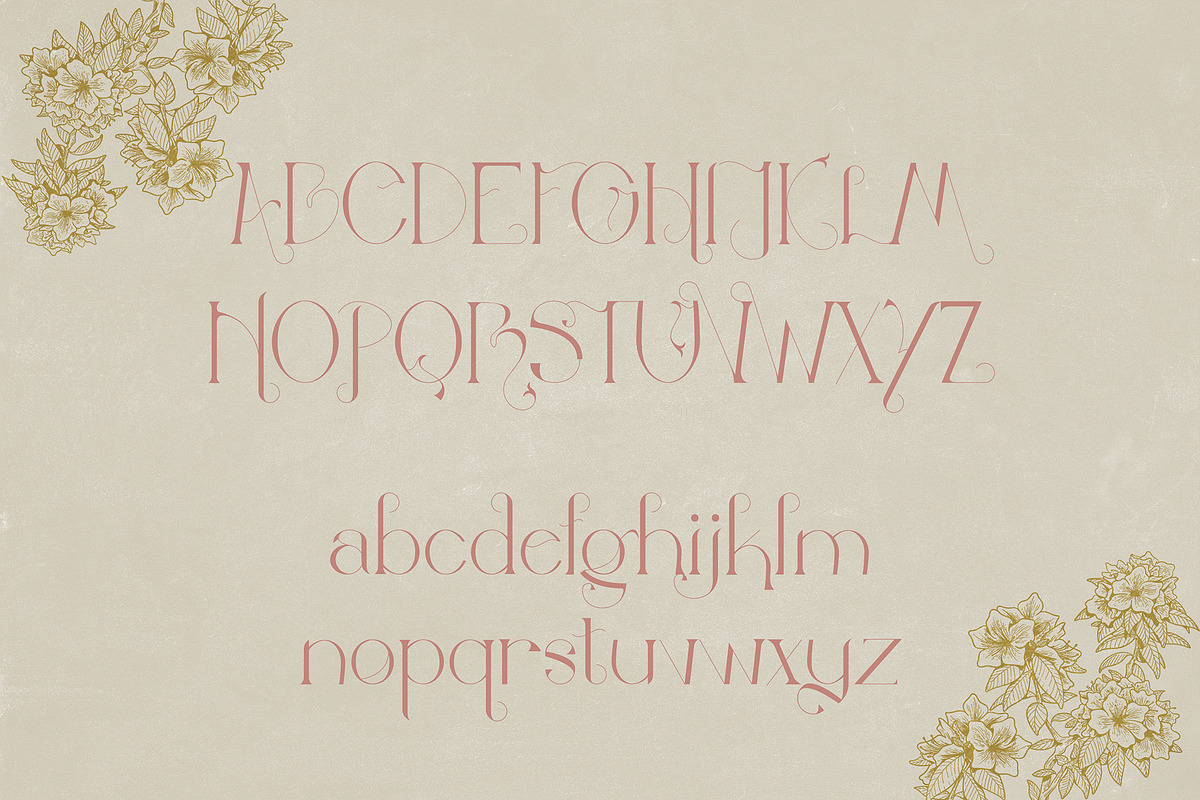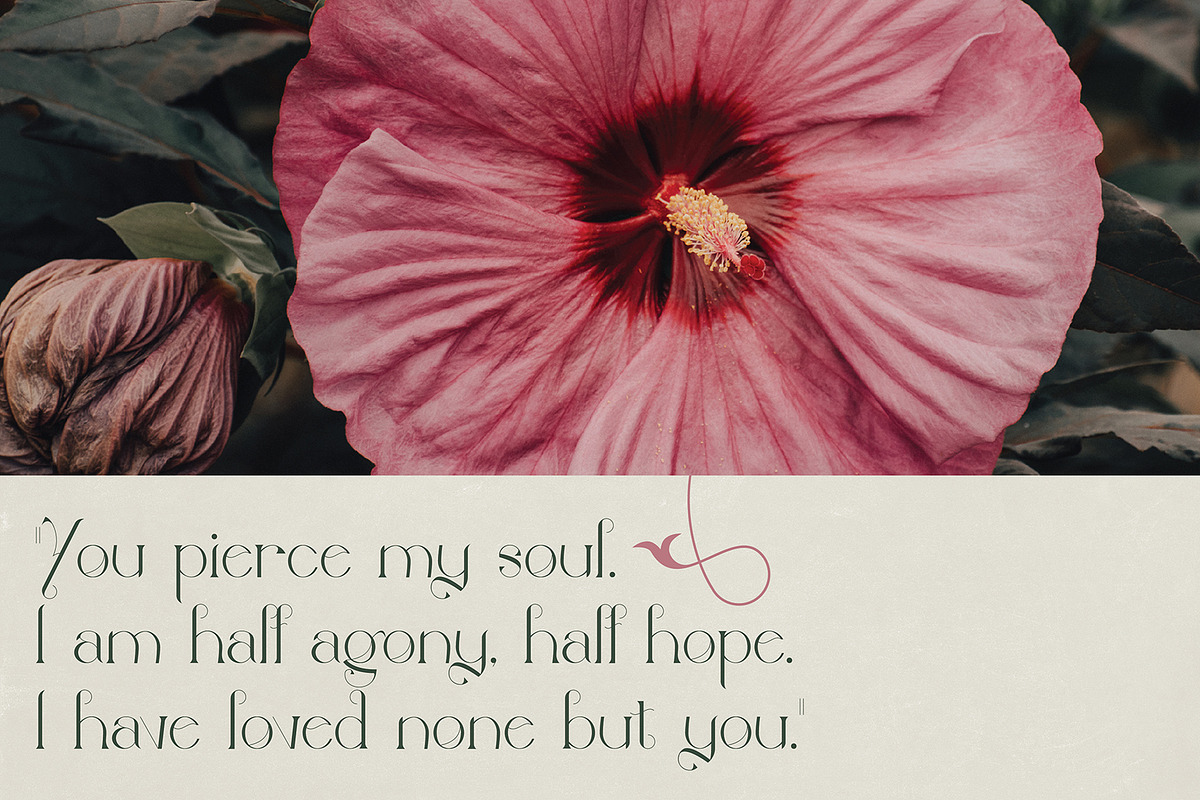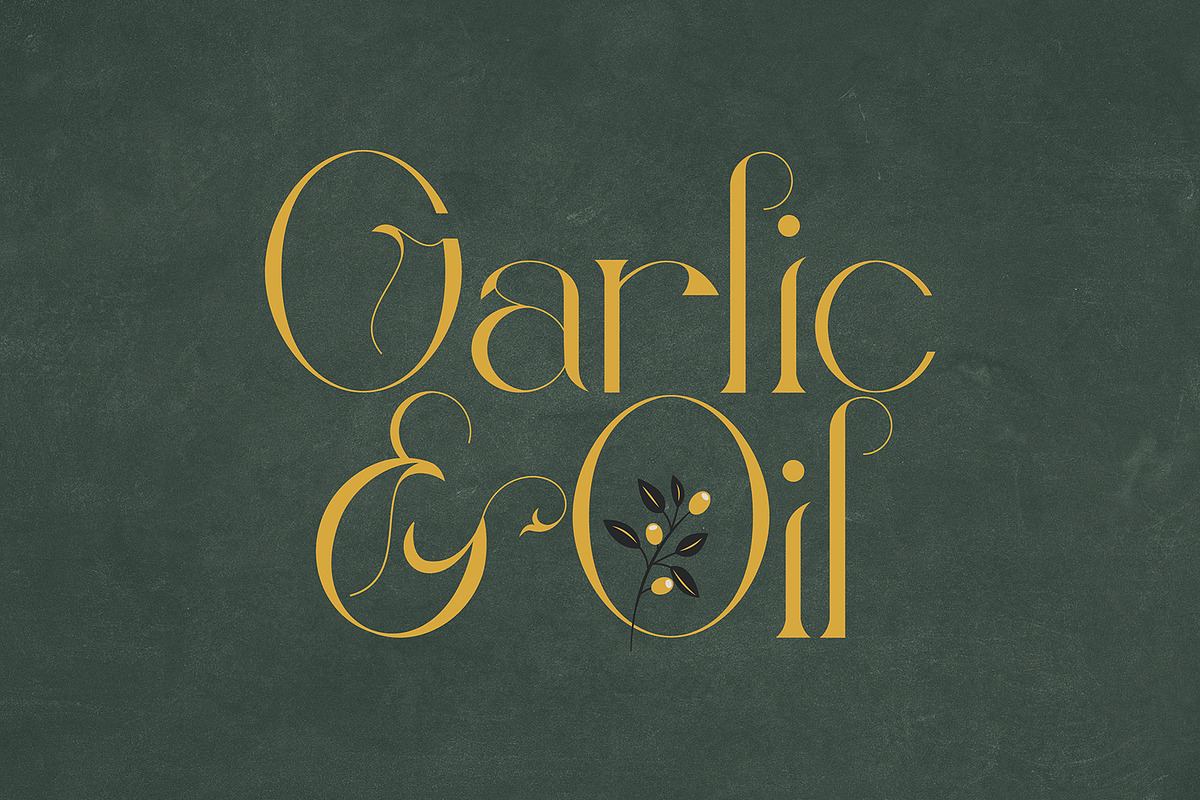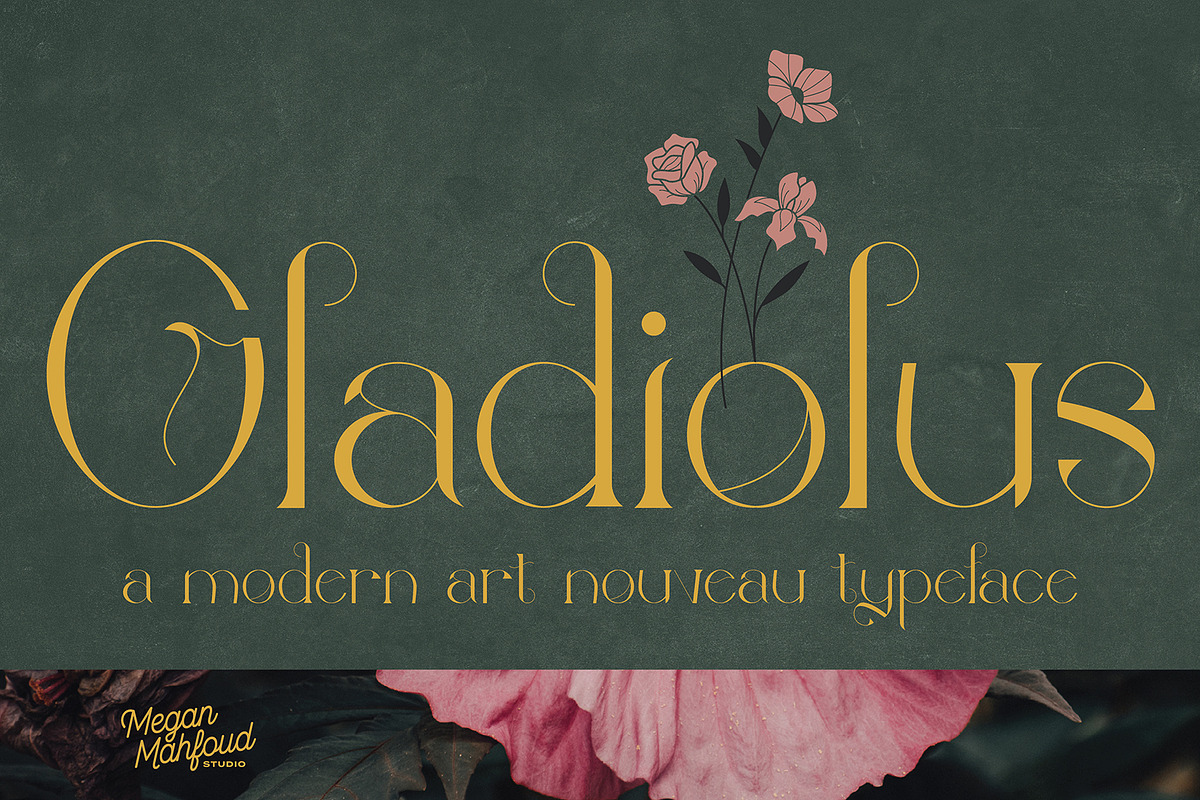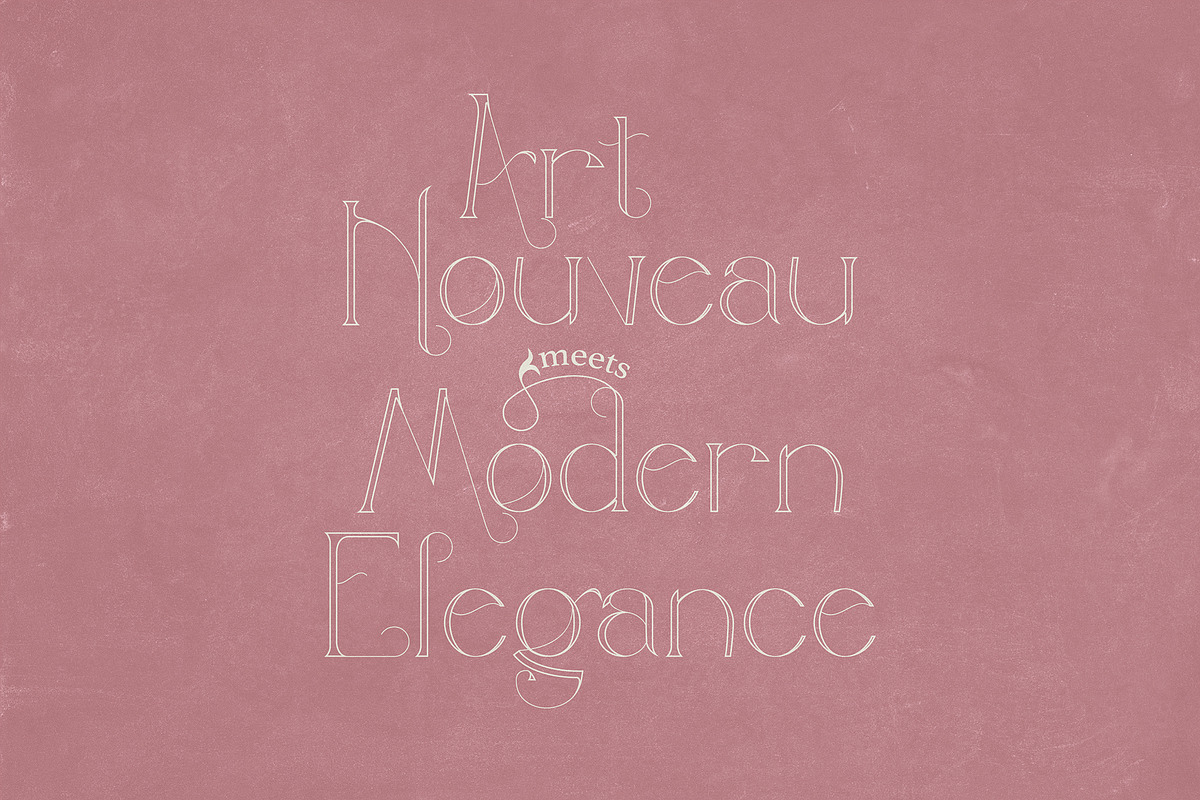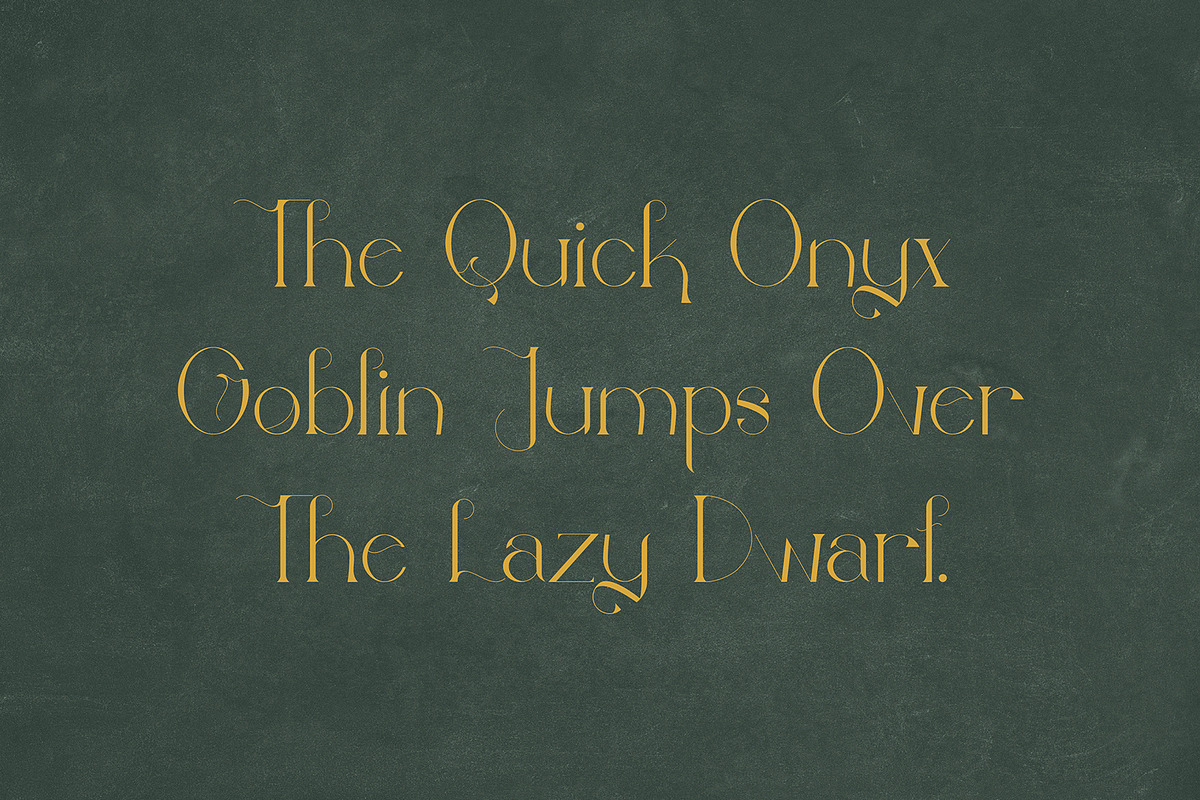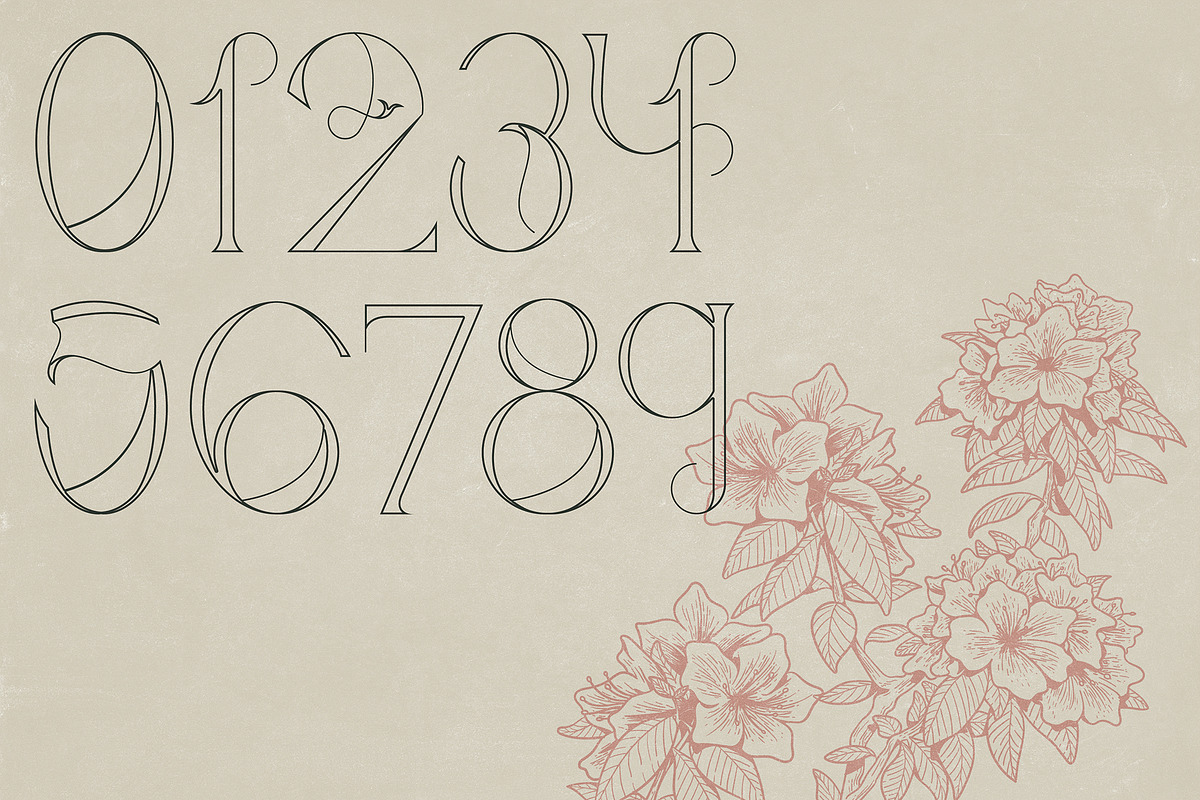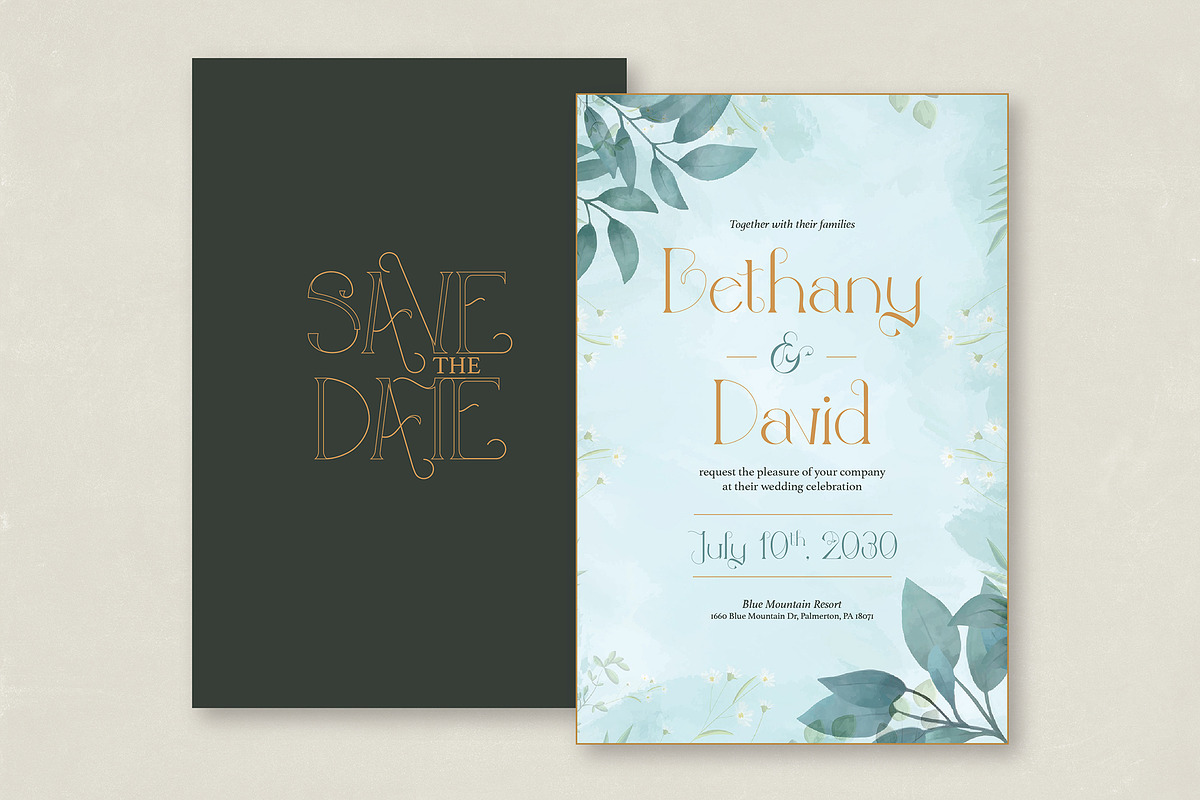
Gladiolus: Elegant Art Nouveau Type
With the elegance of a Jane Austen story comes a modern Art Nouveau typeface, Gladiolus! Named after a flower known as the “sword lily," this type is comparable with its soft curves and pointy tips. Not only was this font inspired by the Art Nouveau style, but also by a romantic era of literature that makes you want to sit in a field of flowers with your favorite novel. The caps are slightly more narrow than their lowercase counterparts giving it a beautiful contrast.
This font comes with 1 weight: Regular, and is perfect for luxurious brand needs, editorials, books, wedding invitations, and more!